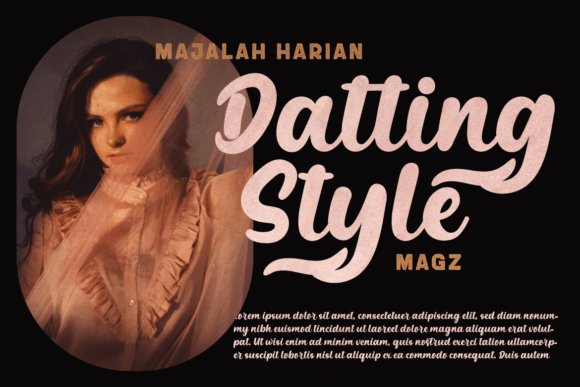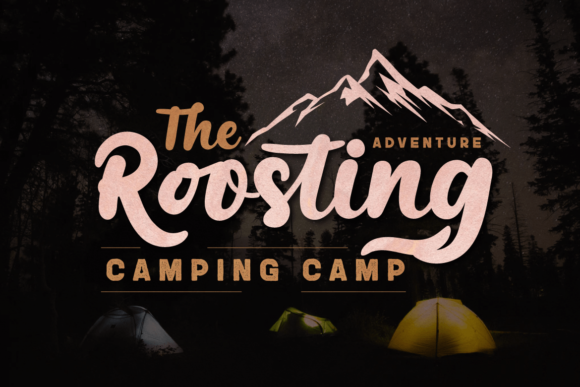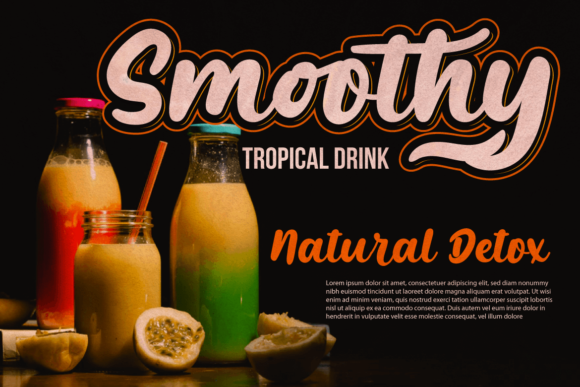
Introduction to Resty Font
You know that feeling when you’re working on a creative project, and you need the perfect font to elevate your design? It’s like searching for the missing puzzle piece – until you finally find it. That’s exactly what happened to me when I stumbled upon the Resty Font. Its bold and handwritten style instantly grabbed my attention, and I knew I had to share it with fellow designers.
Whether you’re working on a logo, headline, or branding project, the Resty Font is a game-changer. Its high-quality design and transparent background make it a versatile resource for any creative endeavor. What I love most about this font is its ability to add a touch of nostalgia and character to your designs, making it stand out from the crowd.
Key Features of Resty Font
- High-quality design resource for creative projects, perfect for digital use
- Features a transparent background, allowing for easy customization and layering in design compositions
- Designed at a high resolution of 300 DPI, ensuring crisp and clear typography in print and digital applications
- Unique characteristics include a modern and minimalist aesthetic, making it suitable for a wide range of creative projects
- Comes in a single weight, ideal for projects requiring a clean and simple font style
Honest Review: Resty Font
I recently came across the Resty Font, a free download that I was excited to add to my design resource library. As a designer, I’m always on the lookout for high-quality fonts that can elevate my creative project.
One of the things that stands out about the Resty Font is its versatility. It comes in a variety of styles, from bold and playful to elegant and sophisticated. I particularly love the fact that it has a transparent background, making it easy to layer over images and other design elements. ✨
Here are some of the key features that I appreciate about the Resty Font:
- Transparent background for seamless layering
- Wide range of styles to suit different design needs
While the Resty Font is a great addition to my design library, there are a few limitations to be aware of. ⚠️ For example, it’s not as customizable as some other fonts, and the font size can be a bit inconsistent across different platforms.
Overall, I’m impressed with the Resty Font, and I think it’s a great resource for designers who need a high-quality font for their creative projects. With a little creativity and experimentation, I’m confident that it can be a valuable asset in your design toolkit.
Tips for Getting the Most Out of Resty Font
To get the most out of the Resty Font, use it with a transparent background to create a stunning visual effect. You can also pair it with other high-quality design resources to add depth and interest to your project.
The Resty Font is perfect for a variety of creative projects, including logos, brochures, and social media graphics. Its elegant and sophisticated design makes it ideal for use in corporate branding and marketing materials.